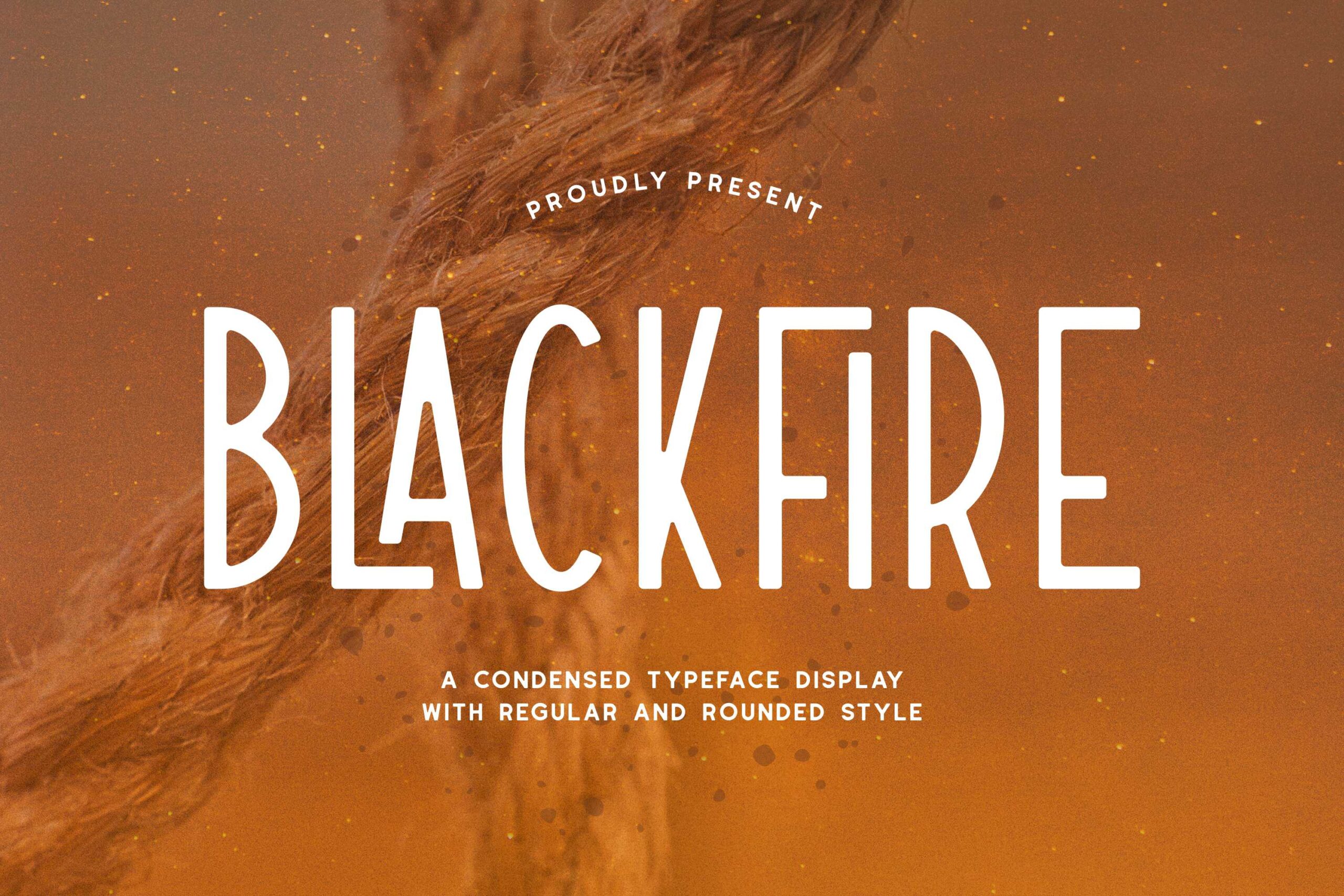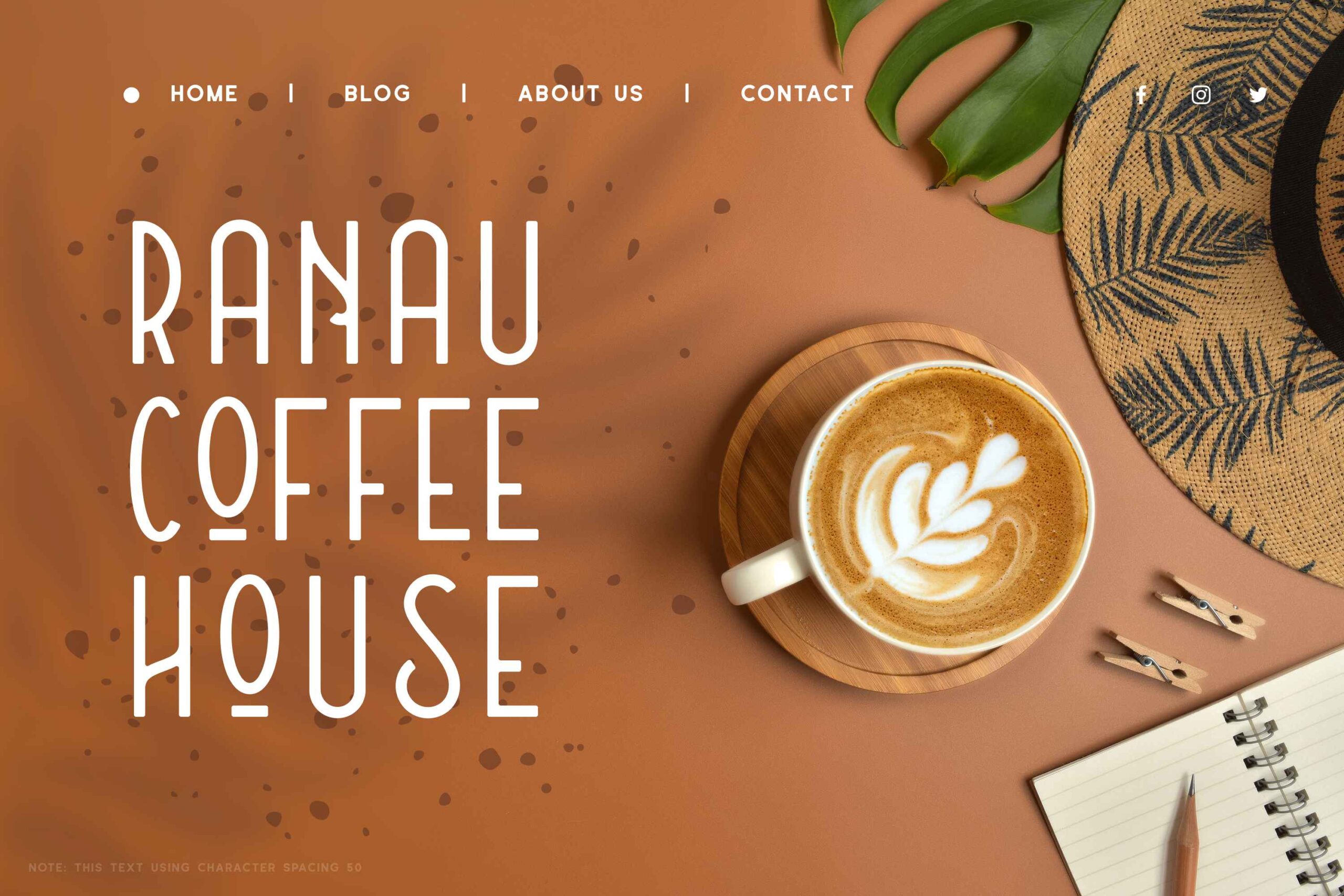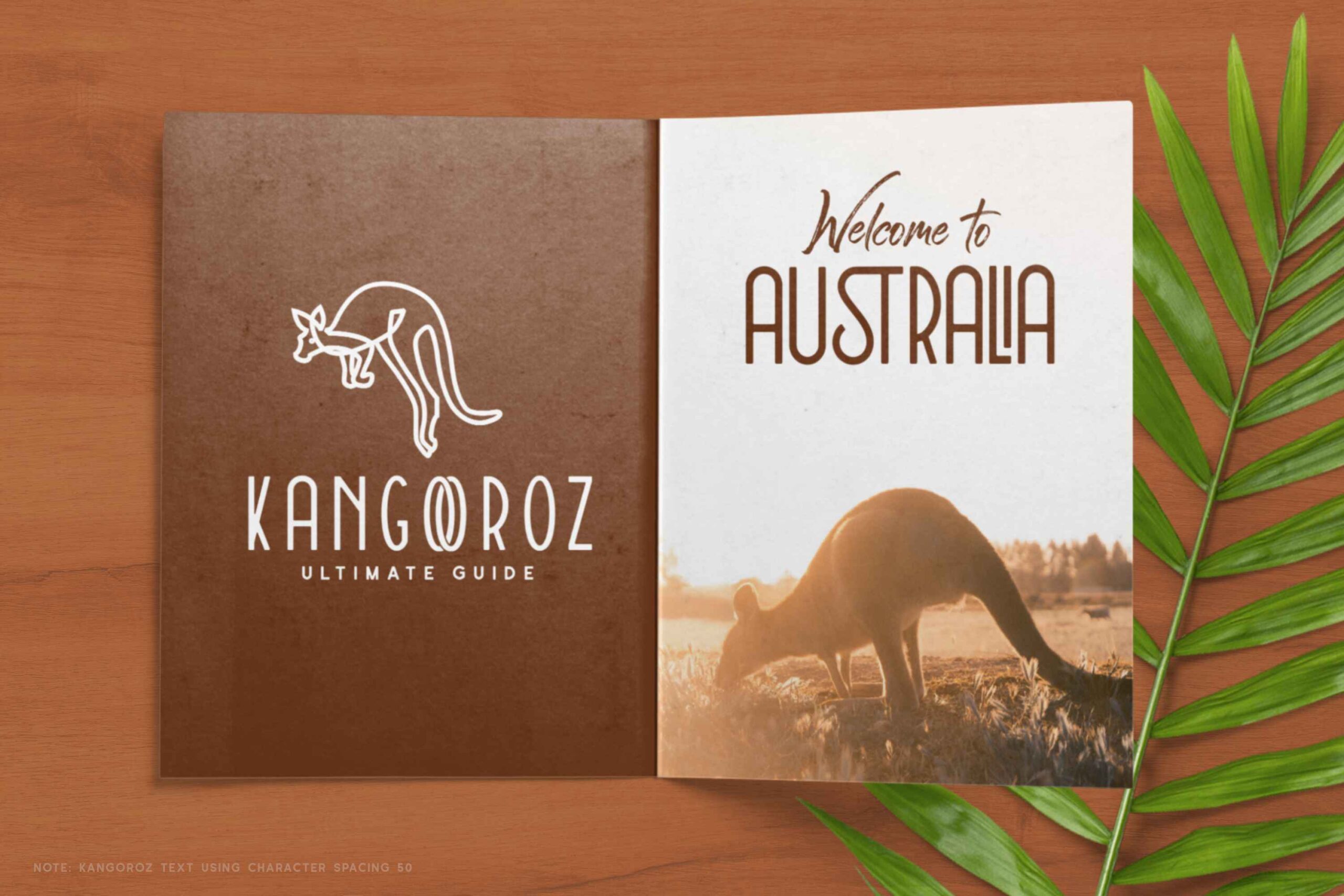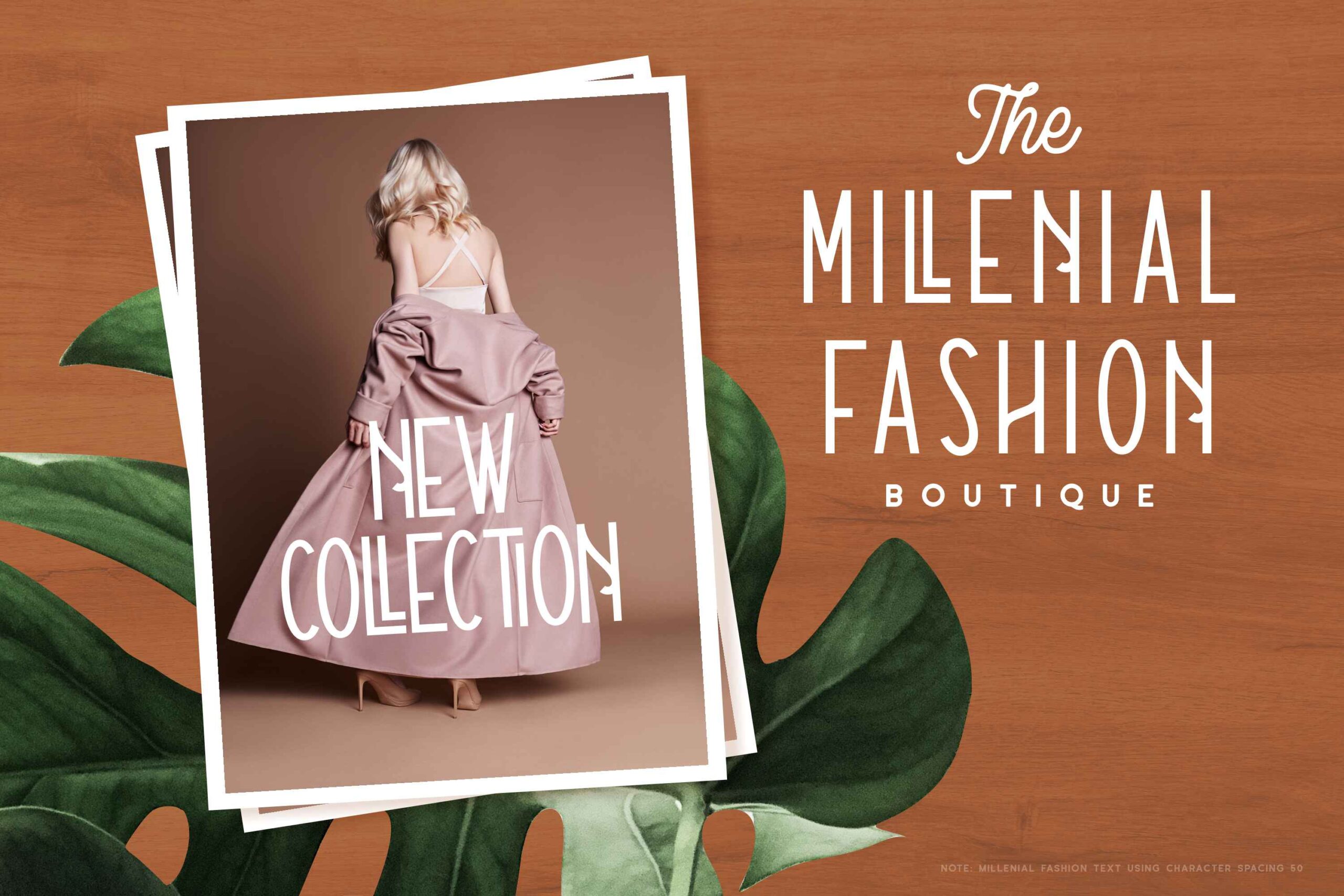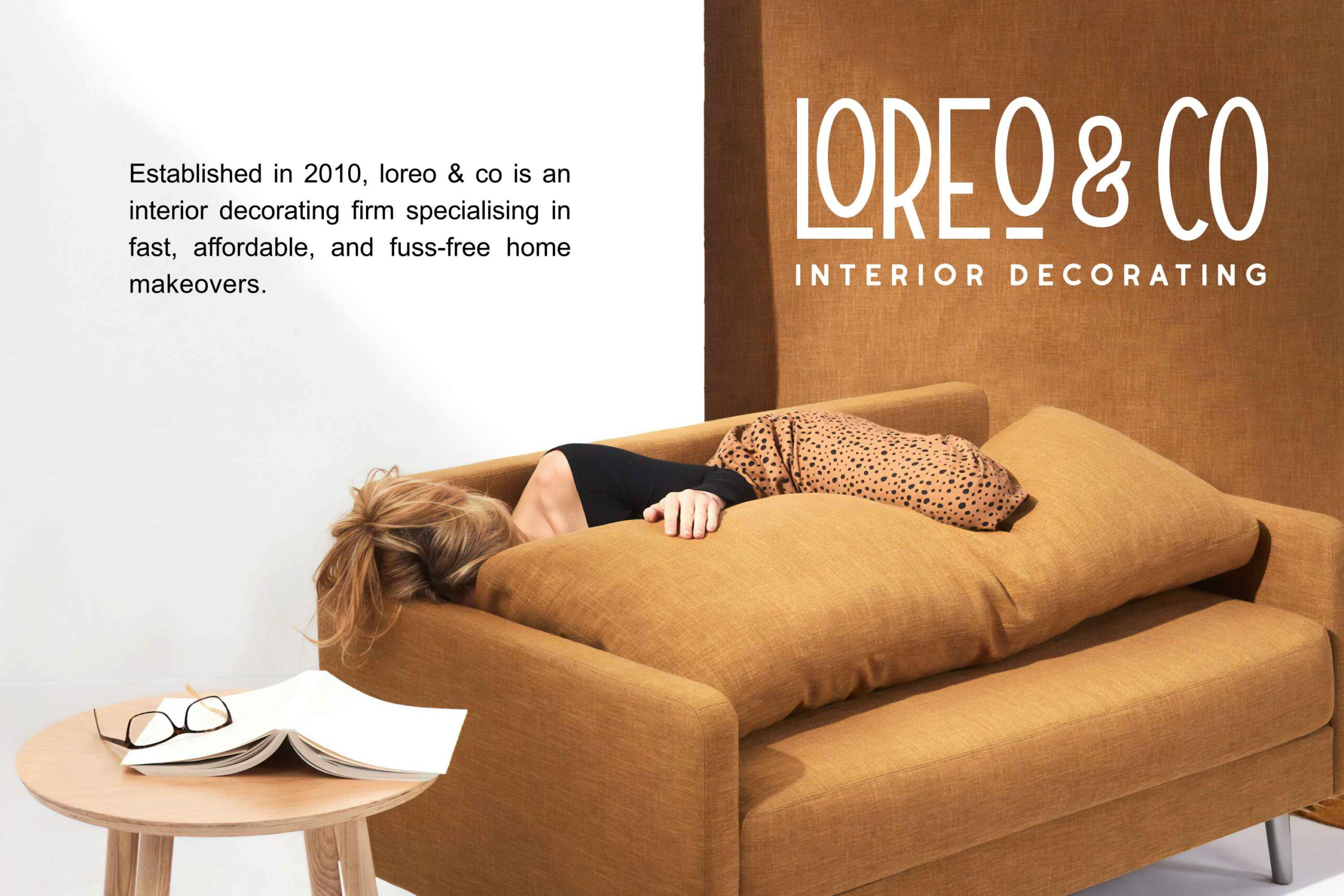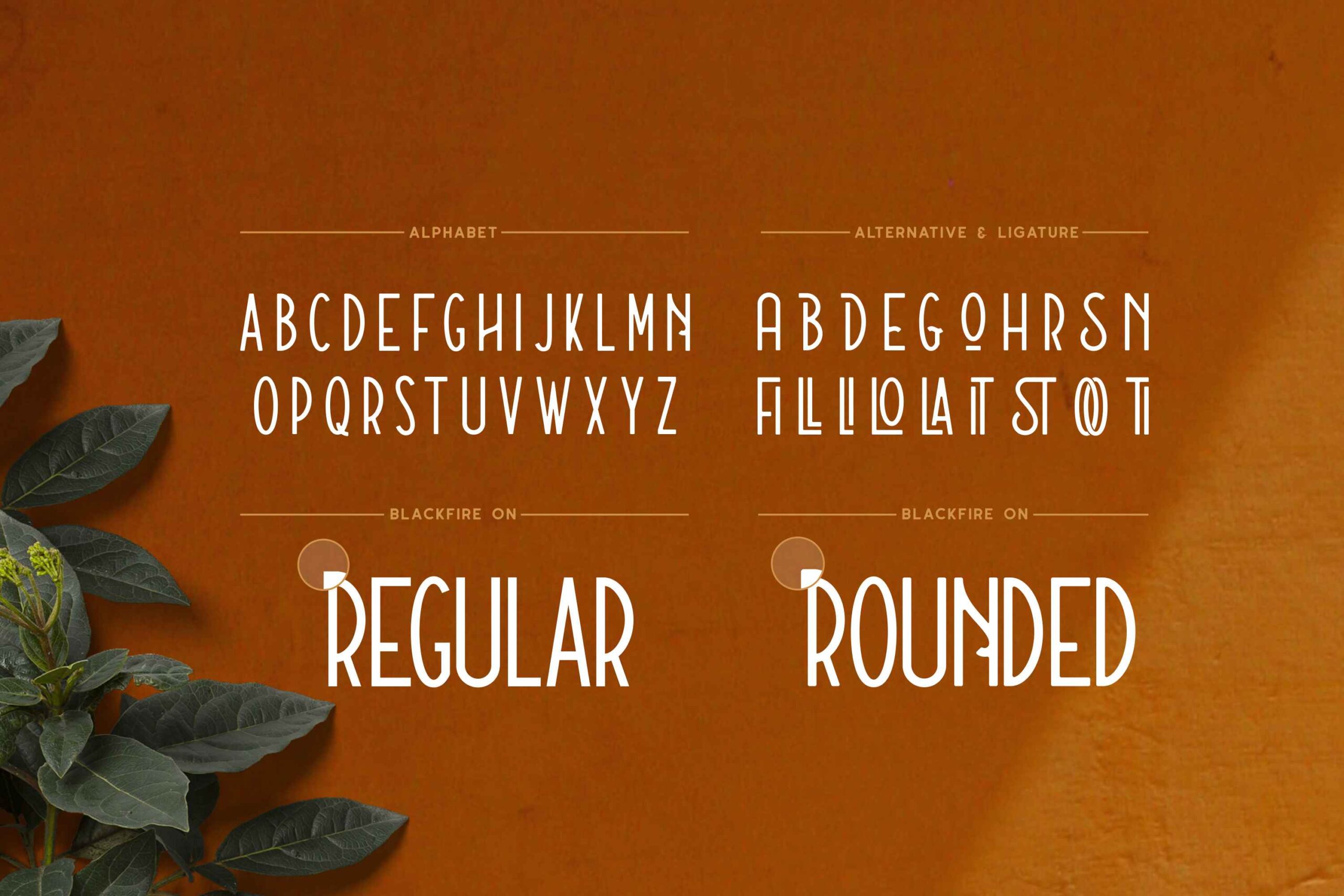
Blackfire
Blackfire is a modern condensed display font with a tall, sleek, and stylish character. Designed with both regular and rounded versions, this typeface offers versatility for creating bold headlines, unique logos, fashion branding, and contemporary editorial layouts. The elongated forms give it a distinctive look that combines elegance and modern minimalism.
With creative ligatures and alternative characters, Blackfire allows you to experiment and bring personality to your designs. It works perfectly for coffee shops, boutique brands, magazine titles, posters, and digital content that need a touch of sophistication with a modern twist. Whether you want a clean or slightly playful tone, Blackfire adapts seamlessly.